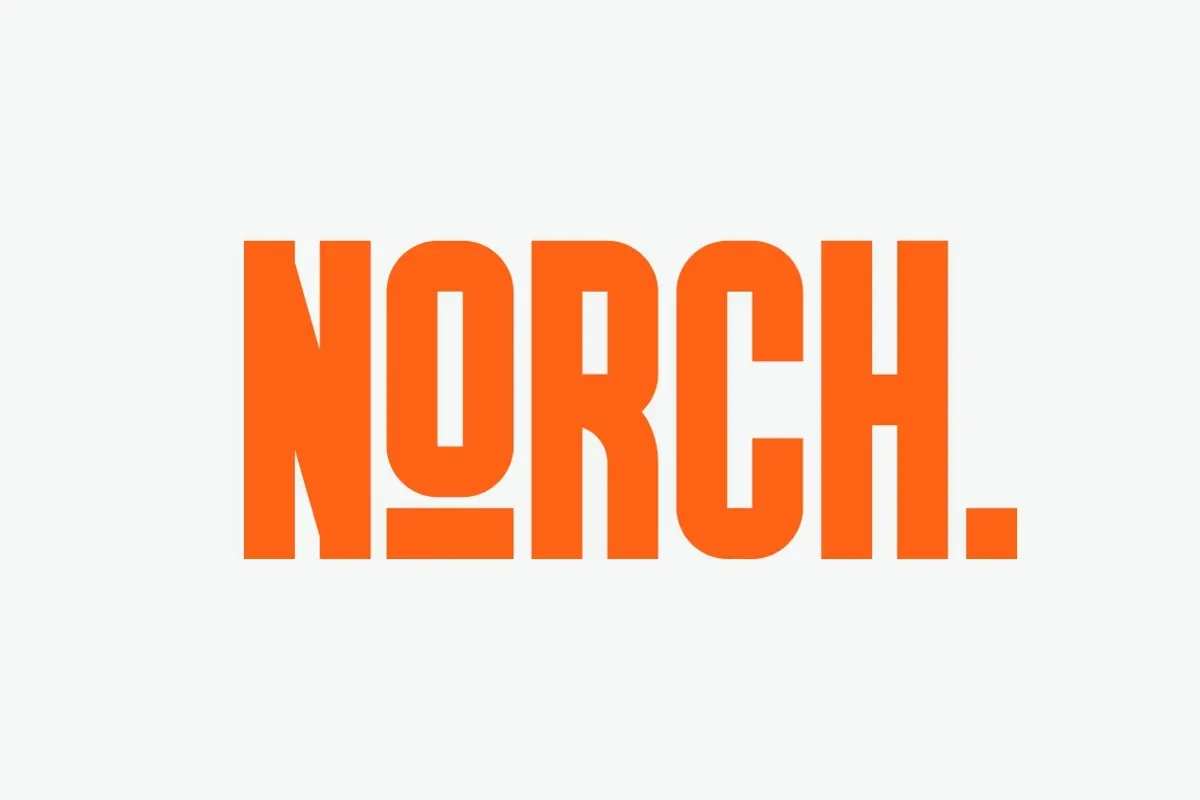
GR NORCH - Sports Display Font Free Download
GR NORCH – Sports Display Font Free Download is a bold and energetic typeface built to dominate the field of sports and athletic branding. Please note, you are required to purchase this font for commercial use. It is available for free download for testing and personal projects only.
With its sharp edges, strong geometry, and dynamic stance, GR NORCH is perfect for team logos, jersey numbers, event posters, e-sports branding, and gym promotions. It brings a competitive, no-nonsense attitude to any design, making it impossible to ignore.